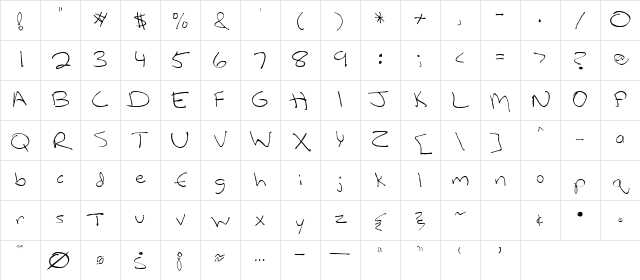
LeftyCasual Medium
LeftyCasual Family
LeftyCasual Medium
Design Context for LeftyCasual
LeftyCasual is a composed and adaptable typeface that performs quietly and consistently across a wide range of design contexts.
Pro Tip: Use LeftyCasual in both headline and body roles to test its range before committing to a single application.